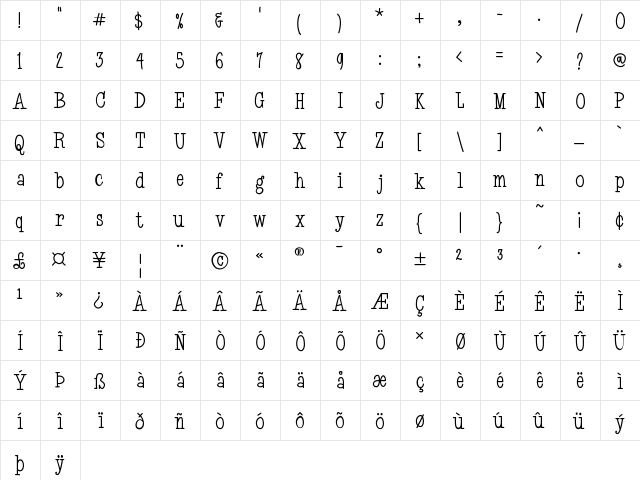
MySkinnyType Medium
| Designer | Joanna Alog |
Design Context for MySkinnyType Typeface
MySkinnyType is a composed and adaptable typeface that performs quietly and consistently across a wide range of design contexts.